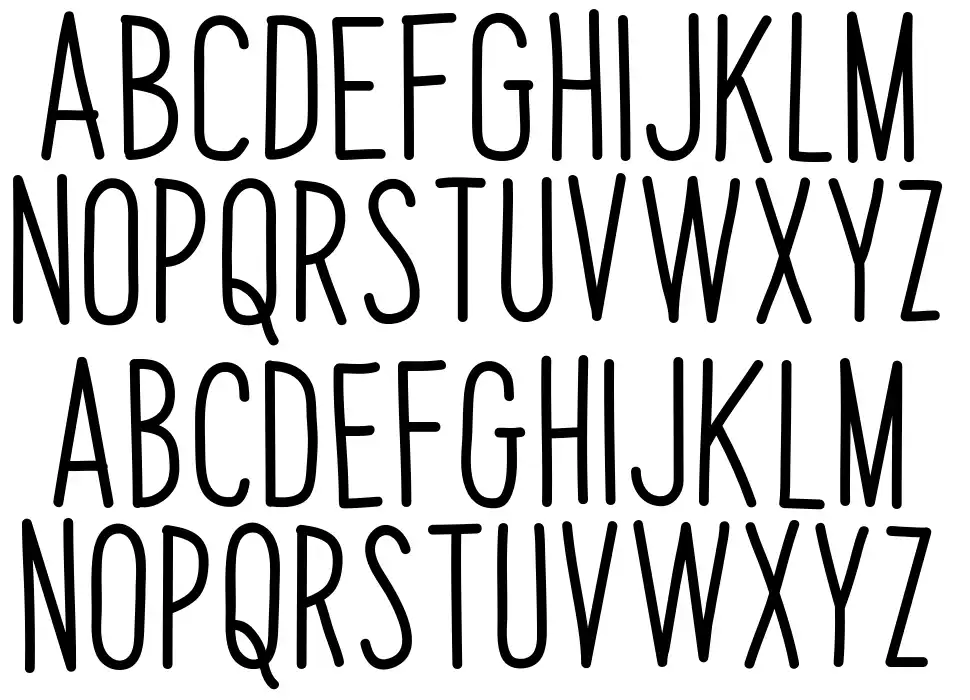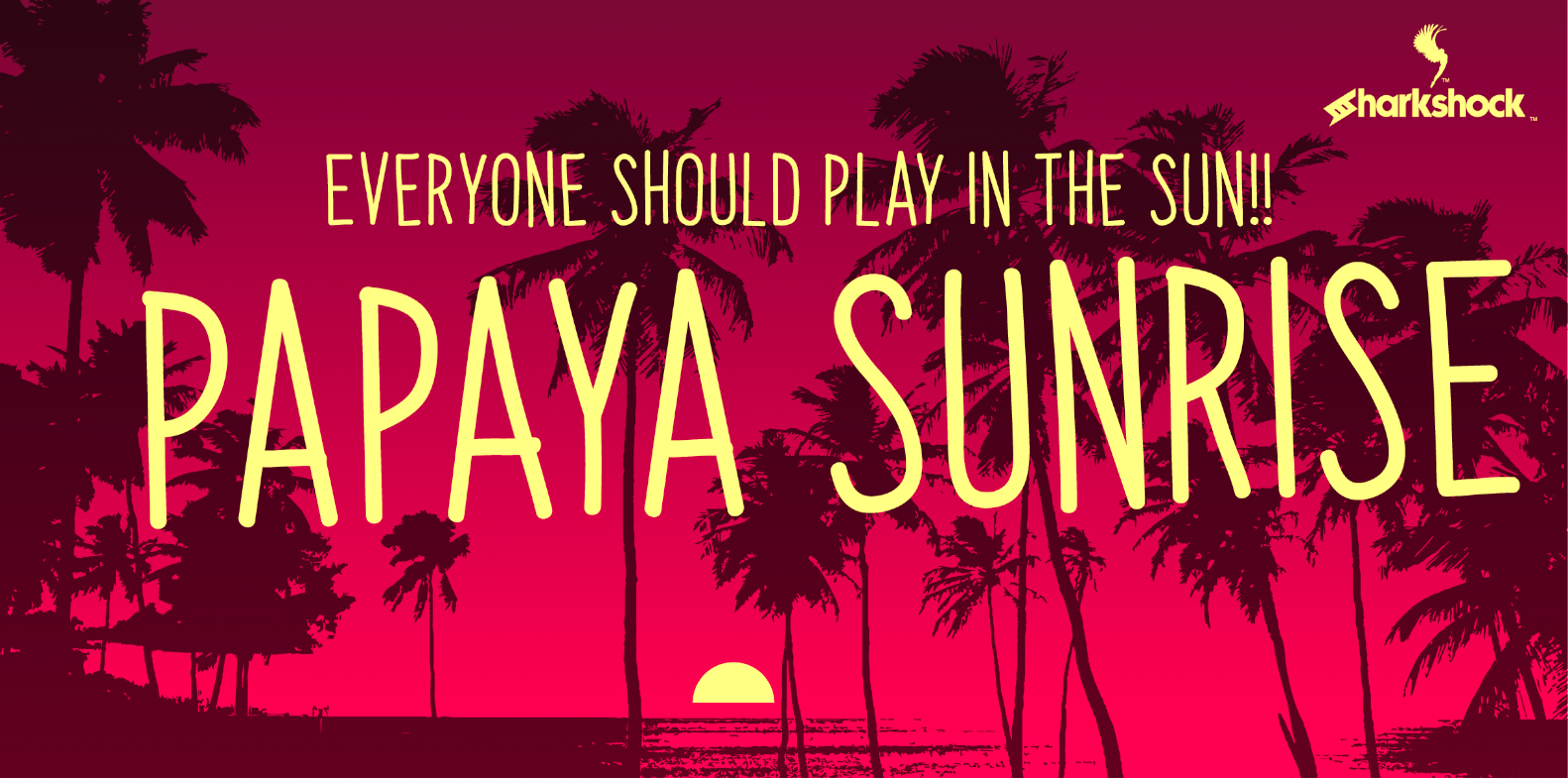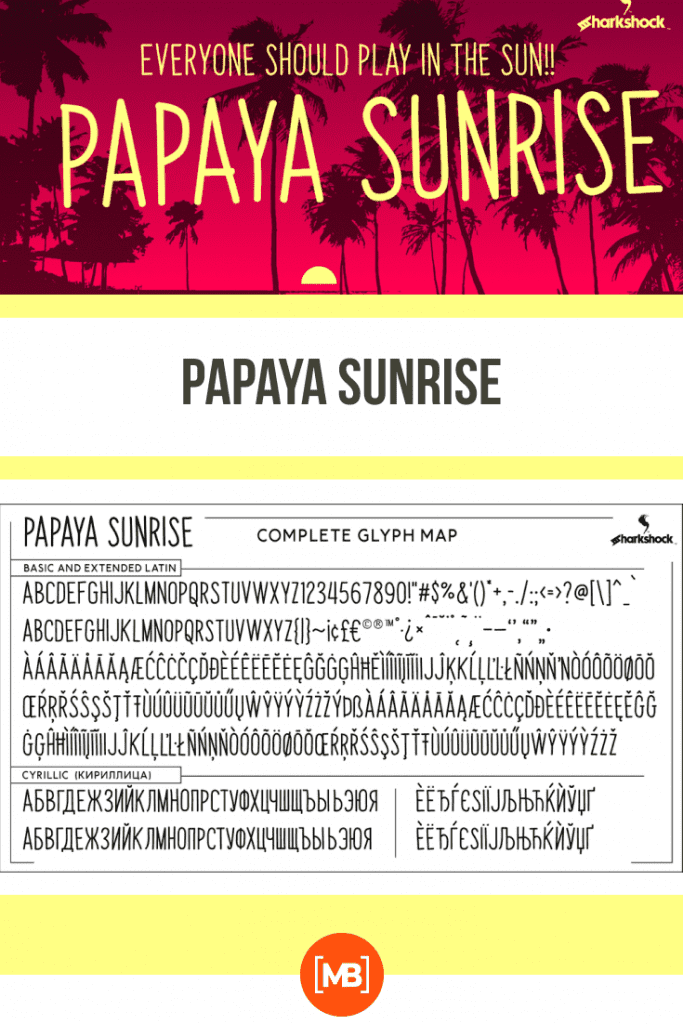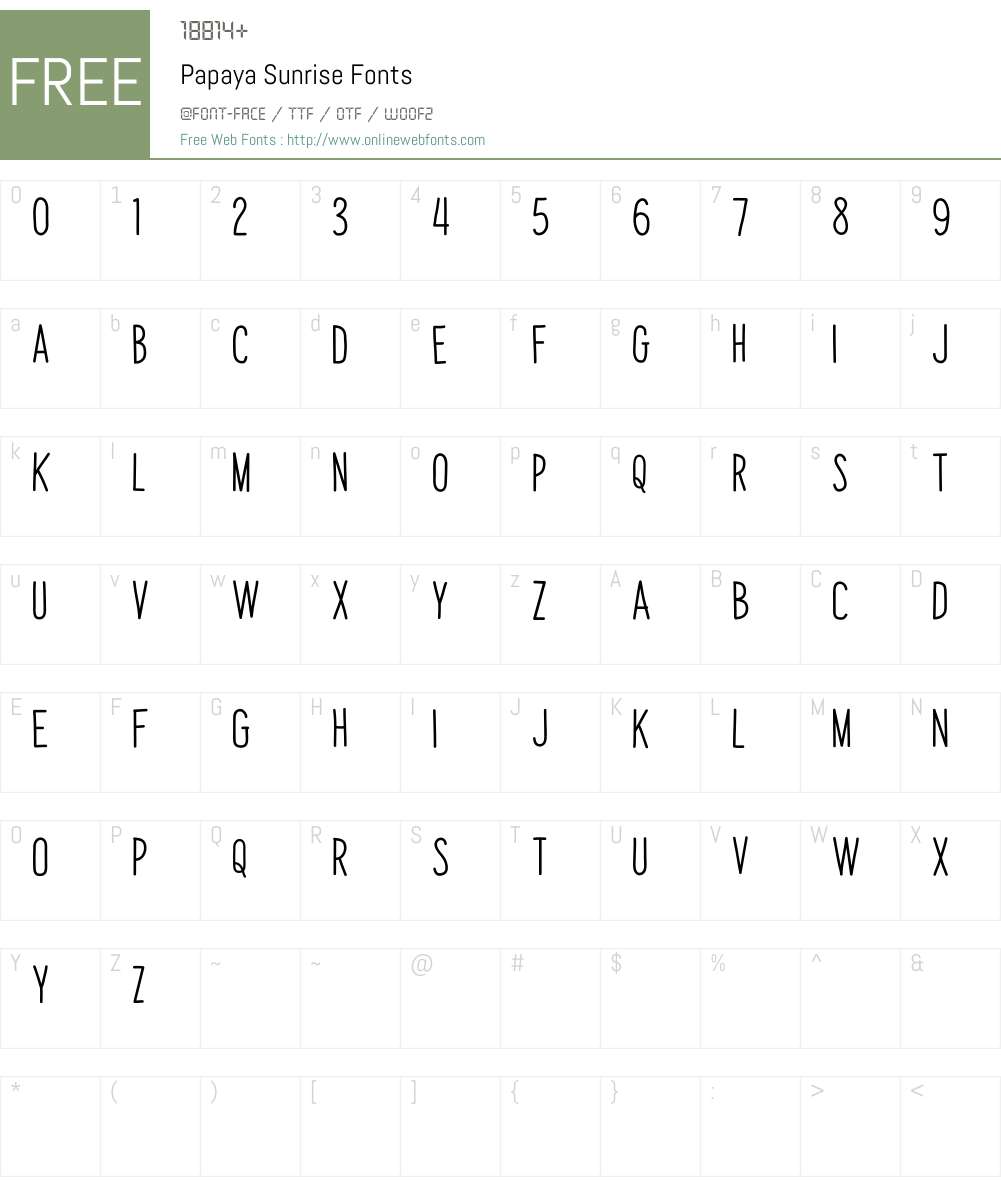
Papaya Sunrise Font . Papaya sunrise is an all caps display font loosely based on childlike handwriting. Papaya sunrise font free download. Papaya sunrise is an all caps display font loosely based on childlike handwriting. Papaya sunrise is a free font for personal use created by sharkshock. Although unrefined in nature it is highly legible. A great choice for highlighting your design elements. Although unrefined in nature it is highly legible and perfect for instances that call for a little informality. Although unrefined in nature it is highly. Papaya sunrise font download is available free from fontget. Free download of papaya sunrise font. Papaya sunrise is an all caps display font loosely based on childlike handwriting. Papaya sunrise is an all caps display font loosely based on childlike handwriting. Click now to create a custom image with your own words that you can download. Although unrefined in nature it is highly legible and perfect for. Although unrefined in nature it is highly legible and perfect for.
Free download of papaya sunrise font. Papaya sunrise is an all caps display font loosely based on childlike handwriting. Although unrefined in nature it is highly legible and perfect for. Although unrefined in nature it is highly. Papaya sunrise is an all caps display font loosely based on childlike handwriting. Papaya sunrise is an all caps display font loosely based on childlike handwriting. Although unrefined in nature it is highly legible. Papaya sunrise font download is available free from fontget. Although unrefined in nature it is highly legible and perfect for instances that call for a little informality. Papaya sunrise is a free font for personal use created by sharkshock.
Papaya Sunrise Font Papaya sunrise is an all caps display font loosely based on childlike handwriting. Papaya sunrise is an all caps display font loosely based on childlike handwriting. Papaya sunrise font download is available free from fontget. Papaya sunrise font free download. Papaya sunrise is an all caps display font loosely based on childlike handwriting. Free download of papaya sunrise font. Papaya sunrise is an all caps display font loosely based on childlike handwriting. A great choice for highlighting your design elements. Papaya sunrise is an all caps display font loosely based on childlike handwriting. Although unrefined in nature it is highly. Although unrefined in nature it is highly legible and perfect for. Papaya sunrise is an all caps display font loosely based on childlike handwriting. Although unrefined in nature it is highly legible. Although unrefined in nature it is highly legible and perfect for. Papaya sunrise is a free font for personal use created by sharkshock. Click now to create a custom image with your own words that you can download.
Papaya Sunrise Font download free Papaya Sunrise Font Although unrefined in nature it is highly legible and perfect for instances that call for a little informality. A great choice for highlighting your design elements. Free download of papaya sunrise font. Papaya sunrise font free download. Papaya sunrise font download is available free from fontget. Papaya sunrise is a free font for personal use created by sharkshock. Although unrefined. Papaya Sunrise Font.
Шрифт Papaya Sunrise Cyrillic procatalog.ru Papaya Sunrise Font Free download of papaya sunrise font. Click now to create a custom image with your own words that you can download. Although unrefined in nature it is highly legible and perfect for. Papaya sunrise is an all caps display font loosely based on childlike handwriting. Papaya sunrise is an all caps display font loosely based on childlike handwriting. Papaya sunrise. Papaya Sunrise Font.
Шрифт Papaya Sunrise Cyrillic скачать бесплатно procatalog Papaya Sunrise Font Click now to create a custom image with your own words that you can download. Although unrefined in nature it is highly legible and perfect for instances that call for a little informality. Although unrefined in nature it is highly legible and perfect for. Papaya sunrise is an all caps display font loosely based on childlike handwriting. Papaya sunrise is. Papaya Sunrise Font.
Papaya Sunrise Font Download Papaya Sunrise Font Papaya sunrise is an all caps display font loosely based on childlike handwriting. Click now to create a custom image with your own words that you can download. Although unrefined in nature it is highly legible and perfect for. Although unrefined in nature it is highly. Papaya sunrise is an all caps display font loosely based on childlike handwriting. Although. Papaya Sunrise Font.
Sunrise Font Free Font Papaya Sunrise Font Although unrefined in nature it is highly legible and perfect for. Papaya sunrise font free download. Click now to create a custom image with your own words that you can download. Papaya sunrise is an all caps display font loosely based on childlike handwriting. Although unrefined in nature it is highly legible and perfect for instances that call for a. Papaya Sunrise Font.
Papaya Sunrise free font Papaya Sunrise Font Papaya sunrise is an all caps display font loosely based on childlike handwriting. Although unrefined in nature it is highly legible and perfect for. Papaya sunrise is an all caps display font loosely based on childlike handwriting. Click now to create a custom image with your own words that you can download. Although unrefined in nature it is highly. Although. Papaya Sunrise Font.
Papaya Sunrise Font · 1001 Fonts Papaya Sunrise Font Papaya sunrise font download is available free from fontget. Although unrefined in nature it is highly legible and perfect for instances that call for a little informality. Although unrefined in nature it is highly. Papaya sunrise is an all caps display font loosely based on childlike handwriting. Although unrefined in nature it is highly legible. Although unrefined in nature it. Papaya Sunrise Font.
Papaya Sunrise free font Papaya Sunrise Font Papaya sunrise is an all caps display font loosely based on childlike handwriting. Papaya sunrise is a free font for personal use created by sharkshock. Although unrefined in nature it is highly. Although unrefined in nature it is highly legible and perfect for. Papaya sunrise is an all caps display font loosely based on childlike handwriting. Papaya sunrise is an. Papaya Sunrise Font.